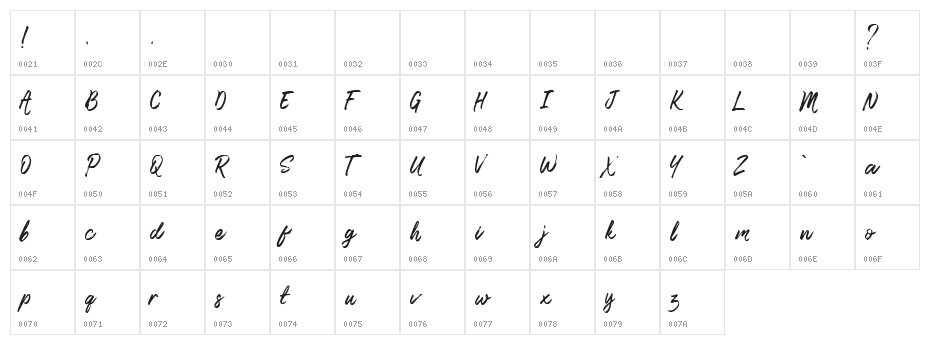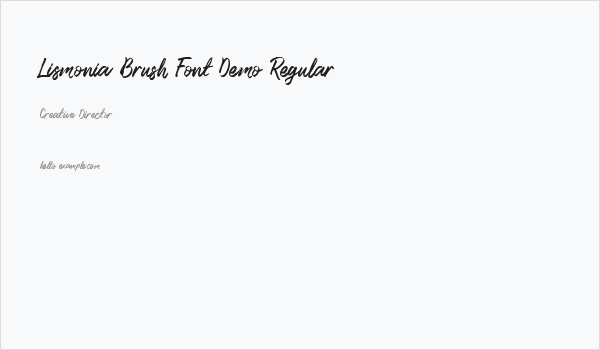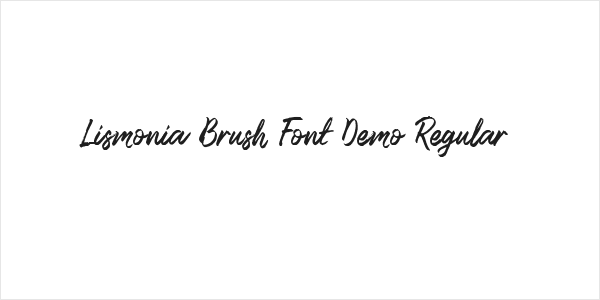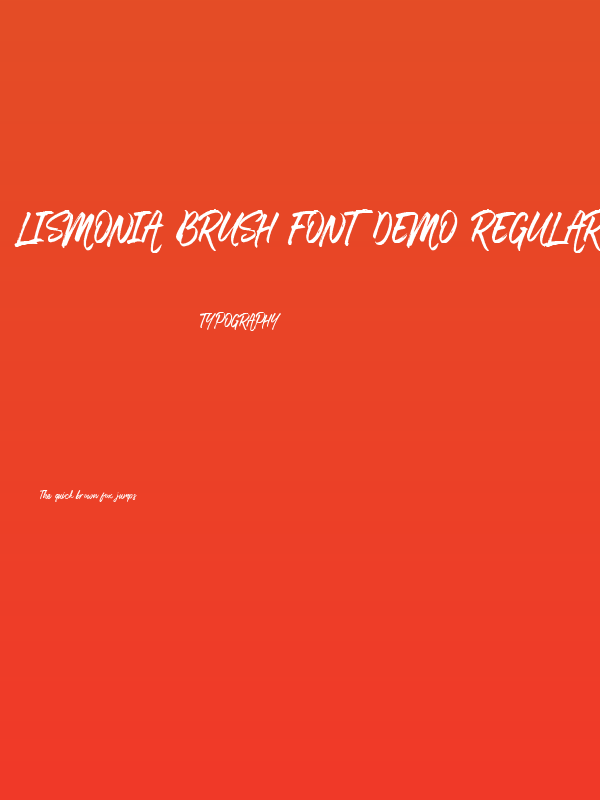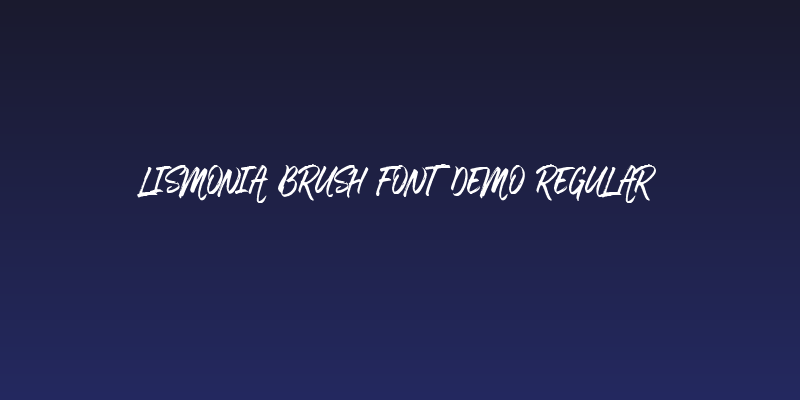
Lismonia Brush Font Demo Regular Font
Lismonia Brush Font Demo Regular Description
This font exudes a dynamic and energetic feel, characterized by its brush-like strokes that mimic the fluidity of hand-painted lettering. The uppercase letters stand tall with a slight slant, giving a sense of movement and spontaneity. The lowercase letters maintain this fluidity, with smooth curves and a consistent flow that enhances readability. The overall texture is rough yet controlled, adding a touch of authenticity and artistic flair. The font's natural and organic appearance makes it ideal for projects that require a personal touch or an artistic edge.
| Proposed Projects | Ideal for branding, posters, invitations, and any project needing an artistic, personal touch. |